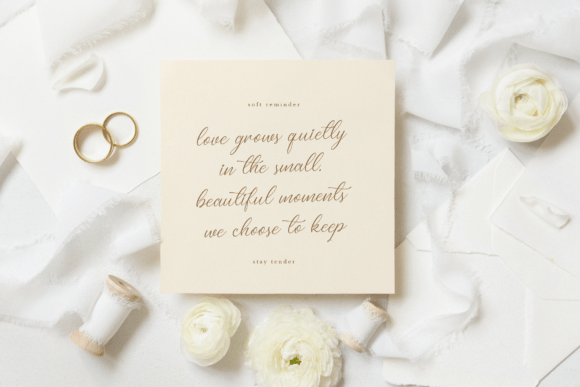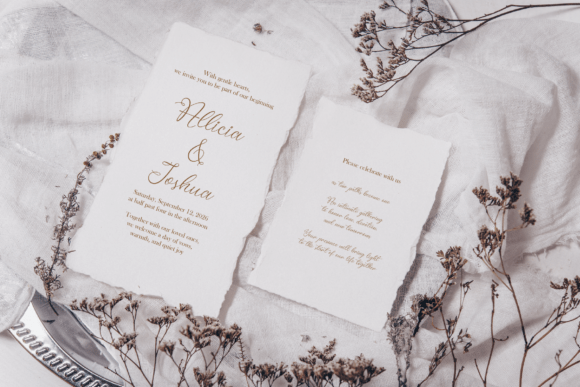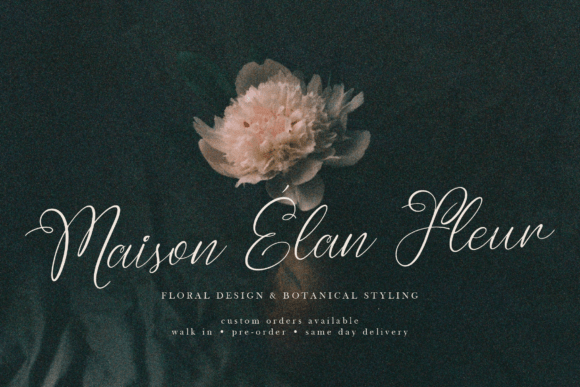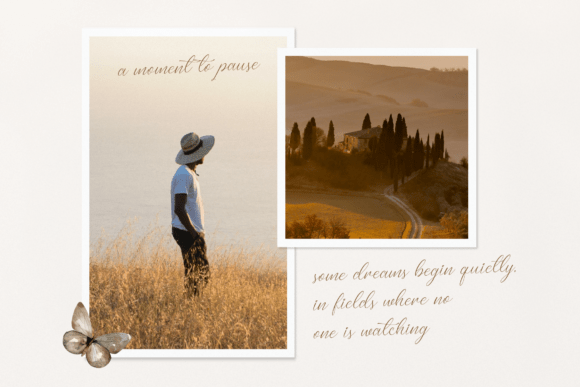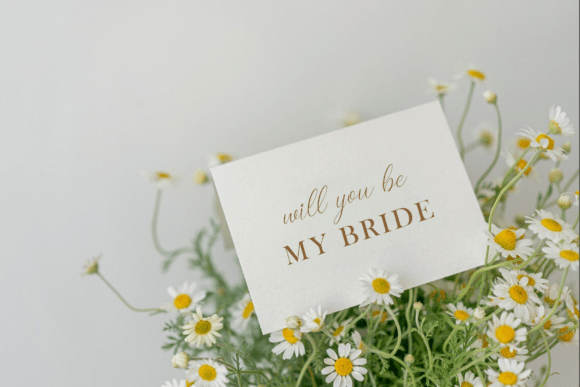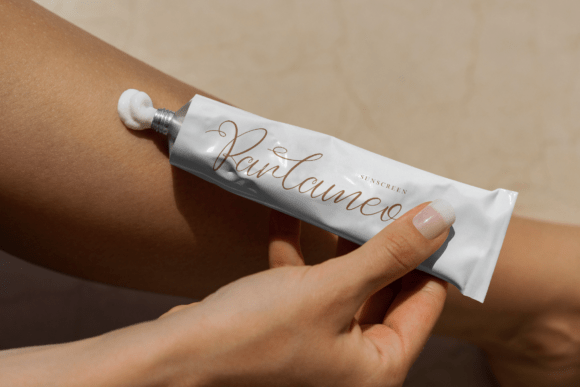
Introduction to Raisahren Font
Remember the moment when you stumbled upon the perfect design element for your creative project? The one that elevates your work from good to exceptional? For many designers, that moment comes with the discovery of a high-quality font that sets the tone for their project’s aesthetic.
Among the numerous design resources available, one font stands out for its ability to infuse luxury projects with a delicate, hand-penned elegance: the Raisahren Font. This sophisticated script font features a unique blend of whimsy and refinement, making it a valuable asset for designers seeking to create high-end professional presence in their work.
With its airy aesthetic and smooth character joins, the Raisahren Font is perfect for boutique brand identities, elegant wedding stationery, and sophisticated editorial headers. Whether you’re looking for a free download or seeking to purchase a high-quality version, this font is sure to become a go-to design resource for your creative endeavors.
- With its distinctive and modern design, the Raisahren Font is perfect for designers seeking to add a touch of sophistication to their creative projects.
Honest Review: Raisahren Font
I recently came across the Raisahren Font, and I was excited to try it out for my latest design project. As a designer, I’m always on the lookout for high-quality fonts that can elevate my work.
What works well about the Raisahren Font is its sleek and modern design. It’s perfect for any creative project that requires a clean and professional look. I also appreciate the transparent background, which makes it easy to customize and combine with other design elements. ✨
- Modern and sleek aesthetic
Overall, I’m impressed with the Raisahren Font. It’s a great addition to any design resource library, and I would definitely recommend it for those looking for a high-quality font for their creative project. With its modern design and transparent background, it’s a great choice for designers who want to create professional-looking work.
Getting the Most Out of Raisahren Font
Use the transparent background feature to create unique and creative designs. Experiment with different font sizes, colors, and styles to add visual interest to your project. With its high quality design, Raisahren Font is perfect for any creative project.
Raisahren Font is ideal for graphic designers, marketers, and entrepreneurs looking for a unique and professional design resource. It’s perfect for creating logos, brochures, flyers, and social media graphics with a high-quality, transparent background.